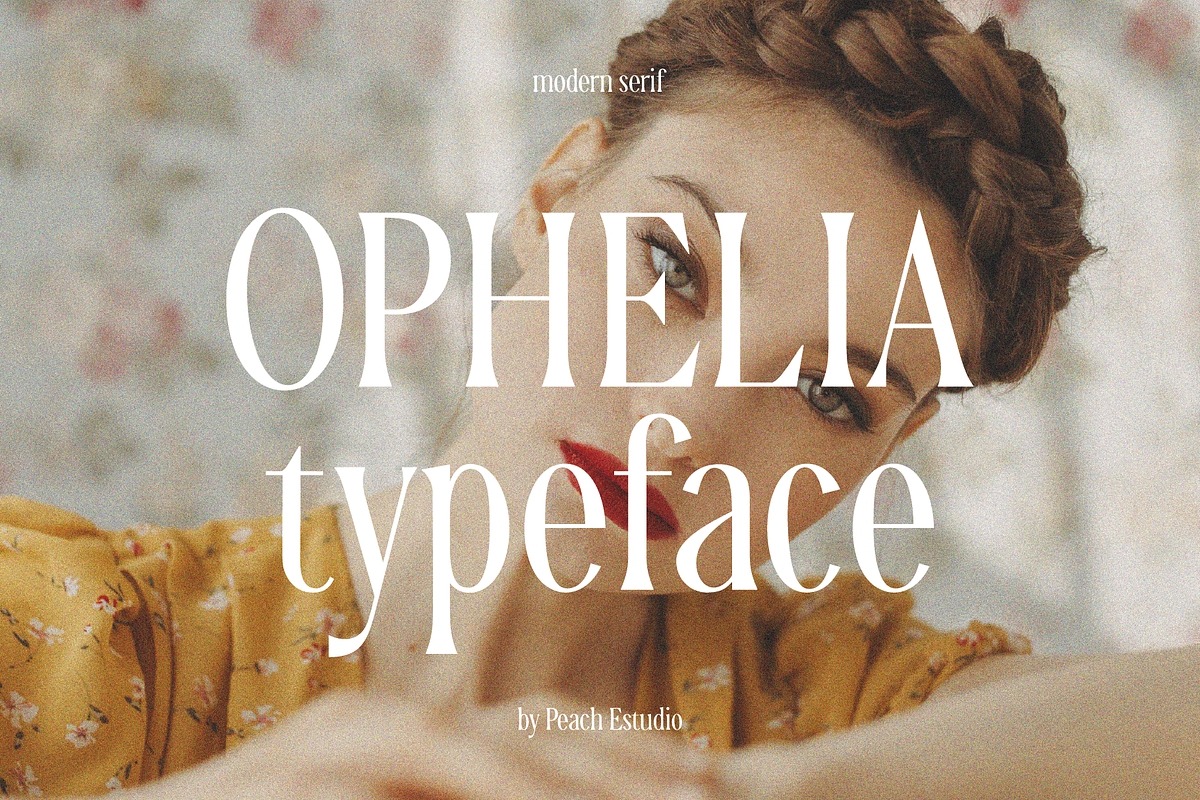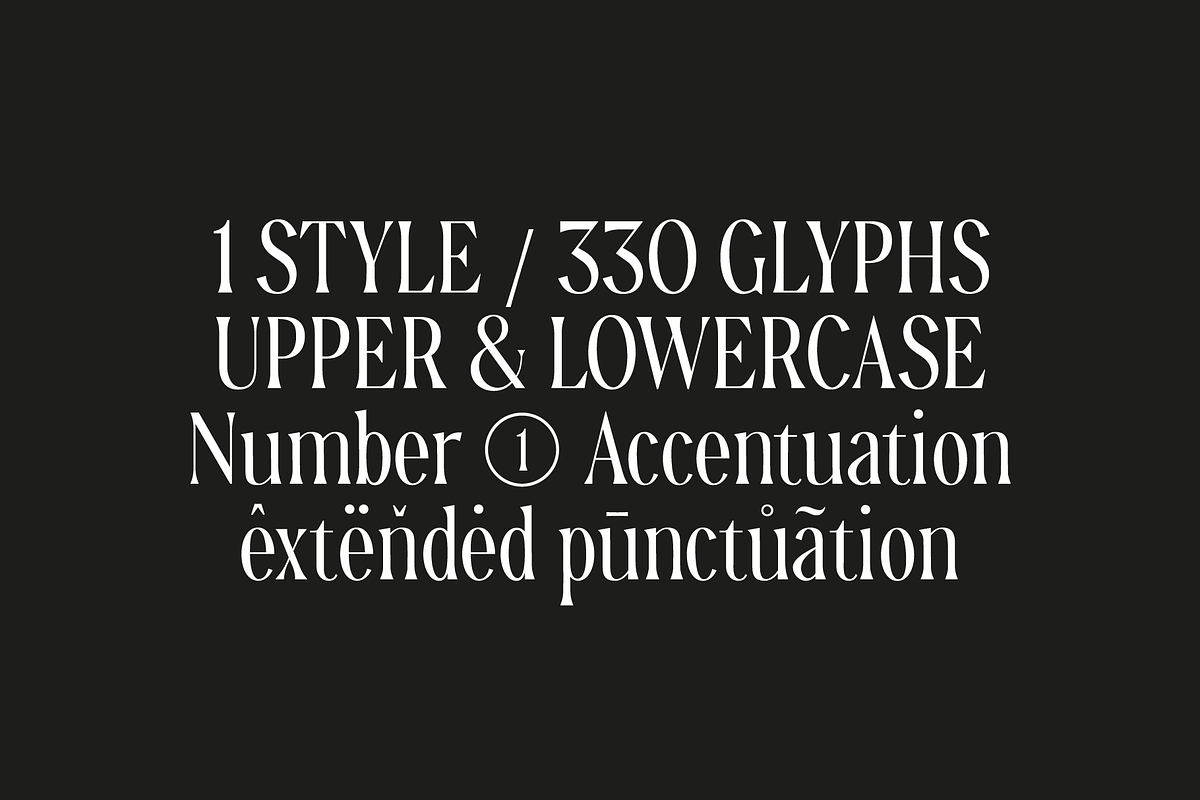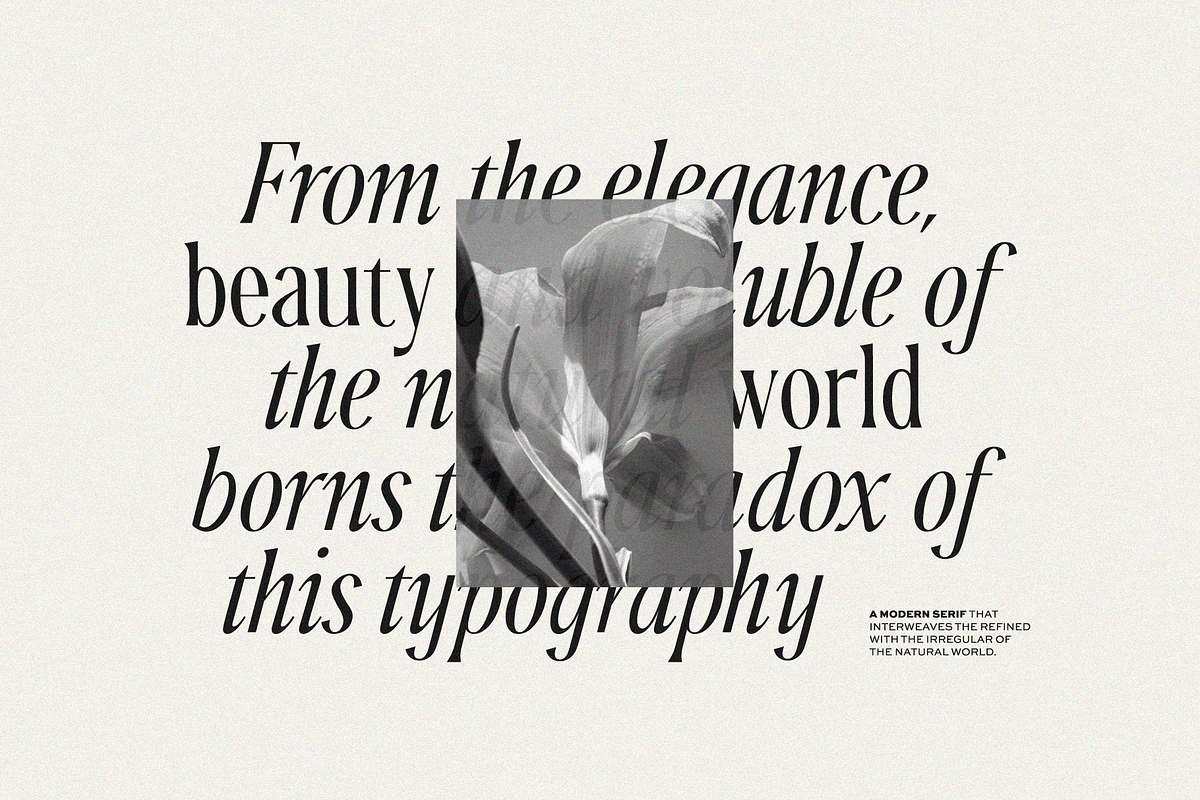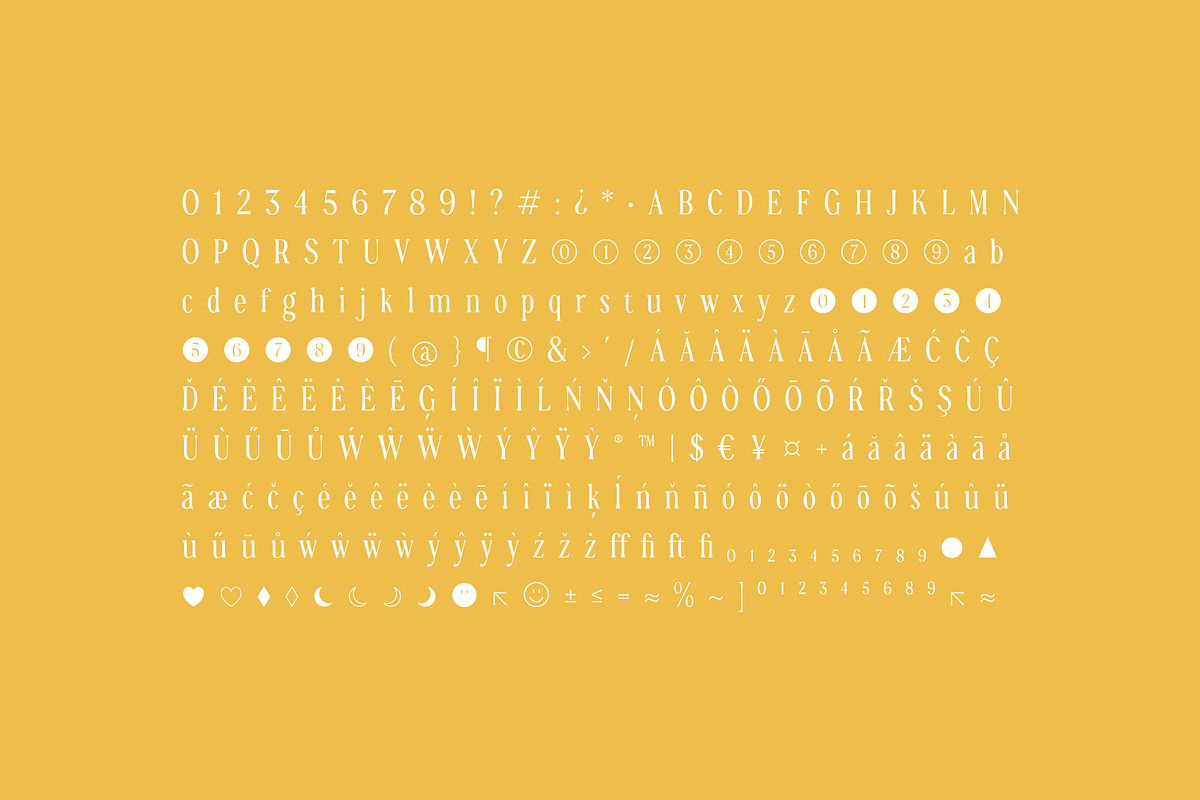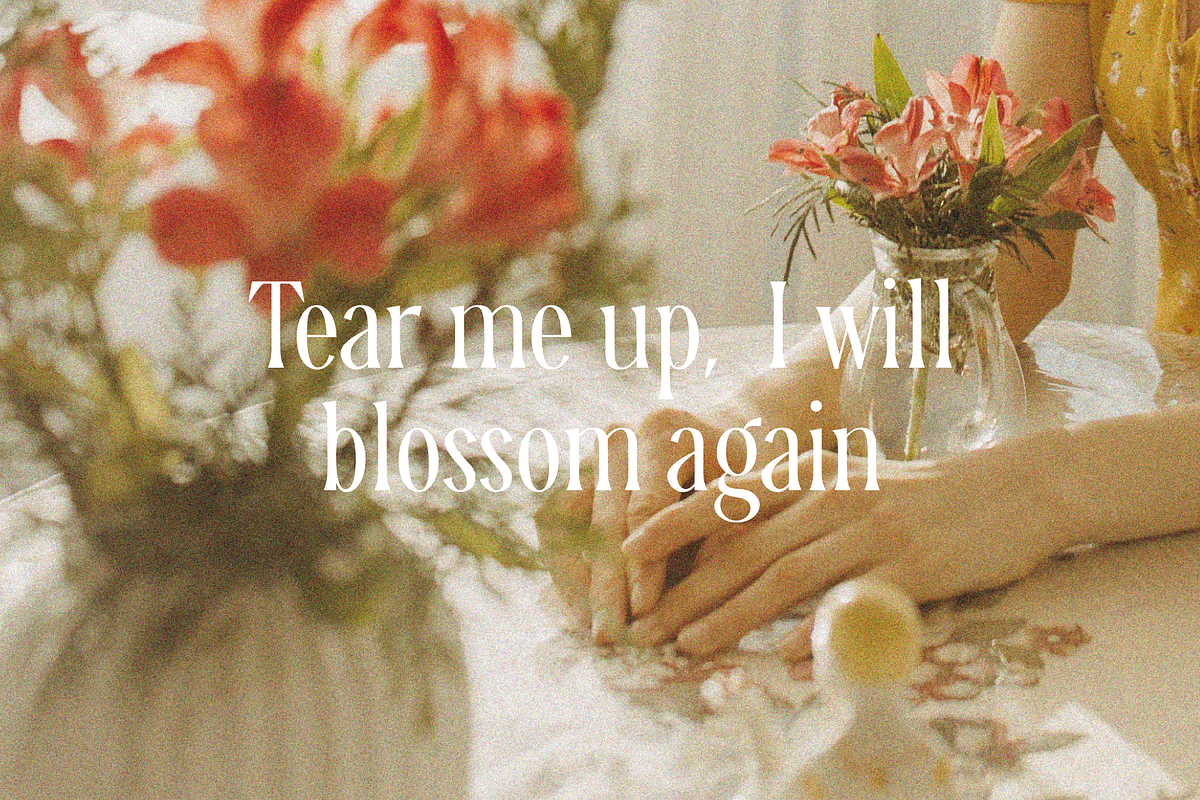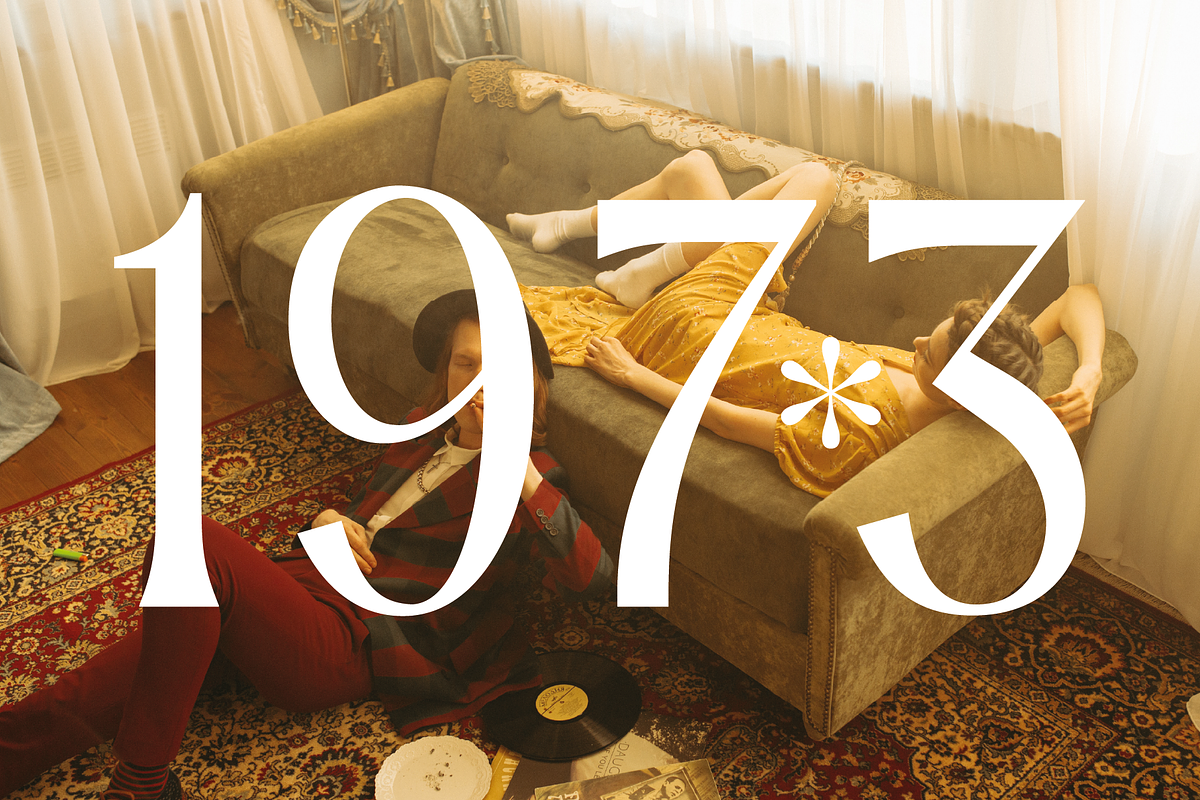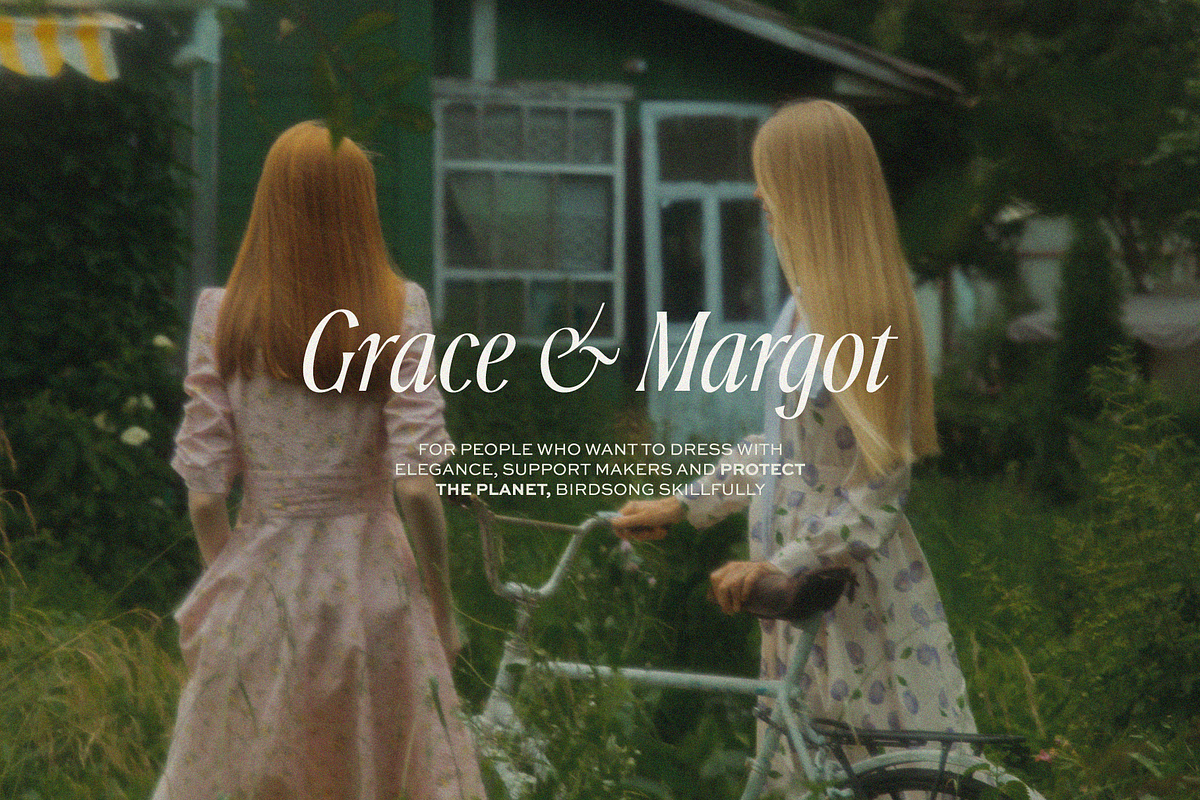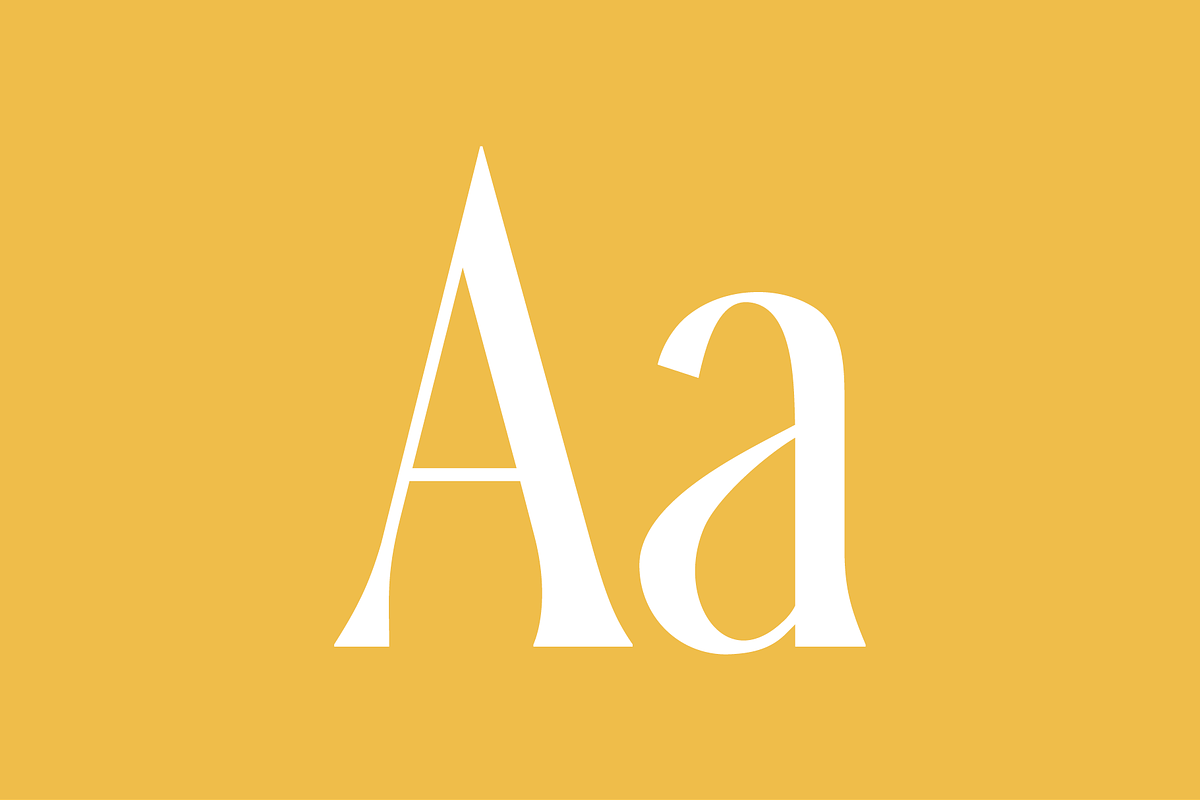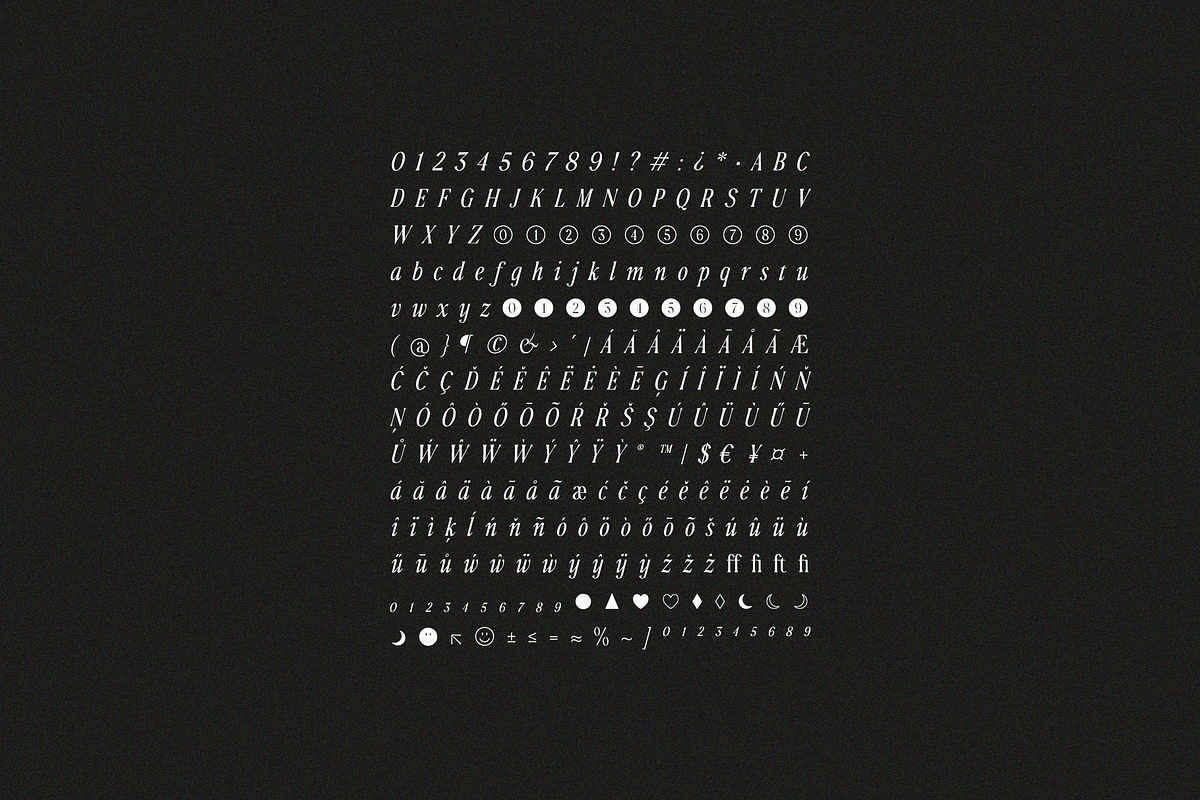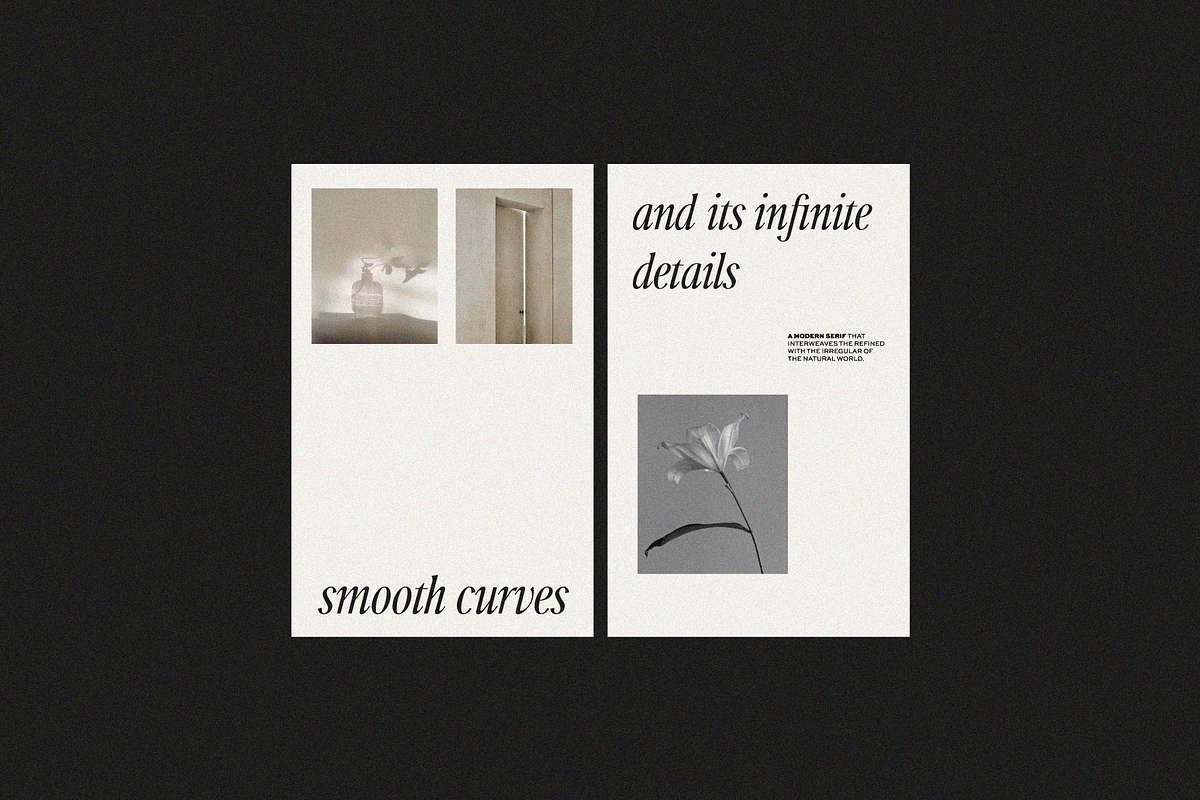
Ophelia - Modern Serif Font
From the elegance, beauty and voluble of the natural world borns the paradox of this typography: a modern serif that interweaves the refined with the irregular of the natural world.
Ophelia is a declaration of elegance and warmth. Its smooth curves and its infinite details carefully designed create a feeling of vanguardism and organic texture that combines perfectly with its high contrast and its subtle wedge serifs, the latter inspired in the retro design, evoking sobriety.
It is a typography that can be used both in capital letters and lower case. It is clean, legible and slender. It also has its own design of numbers, accent marks and extended punctuation. It works perfectly on display texts, trademarks/logotypes and for webs, packaging, headlines and citations. It can also work as a body text, although I would recommend adjusting space (around +20 or +30) to achieve a clearer and more balanced reading.
Styles: 2 style. 660 glyphs, including REGULAR, ITALIC, capital letters, lower cases, numbers, accent marks and extended punctuation.